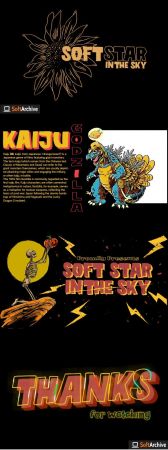
SoftStar is an elegant display font, carefully handcrafted to become a true favorite. Its casual charm makes it appear wonderfully down-to-earth, readable and, ultimately, incredibly versatile. This font will look outstanding in any context, whether it’s being used on busy backgrounds or as a standalone headline!